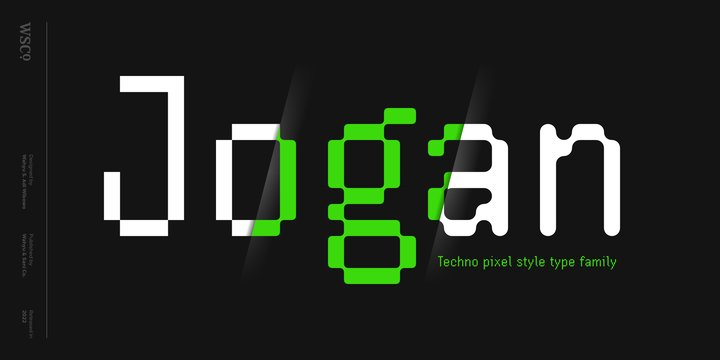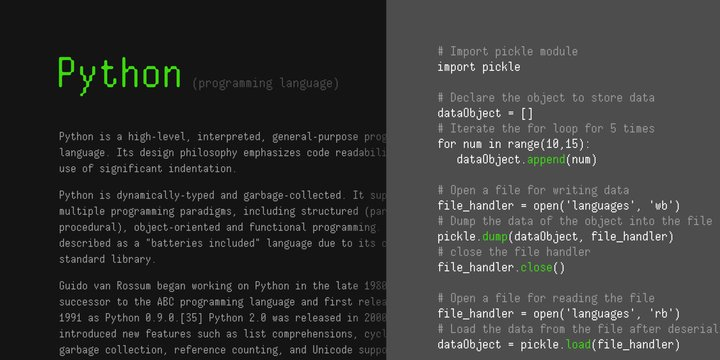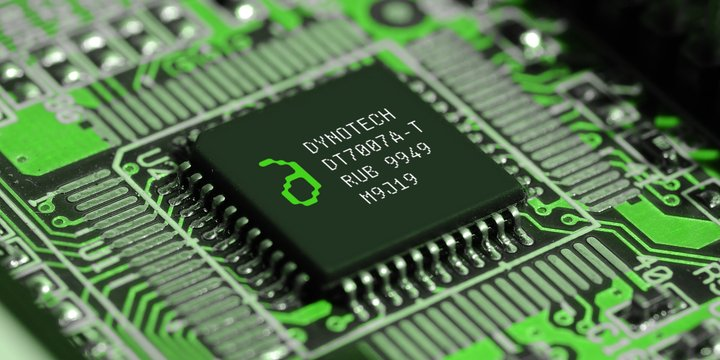
Jogan Font Family
Inspired by the early days of video games where the graphics were made of squares (pixels), Wahyu Wibowo comes up with pixel based typeface design, Jogan, but instead of having medium width, he decided to make it narrow which is rarely exist in pixel style font. The style were expanding in the development process, so the family have 4 subfamilies: